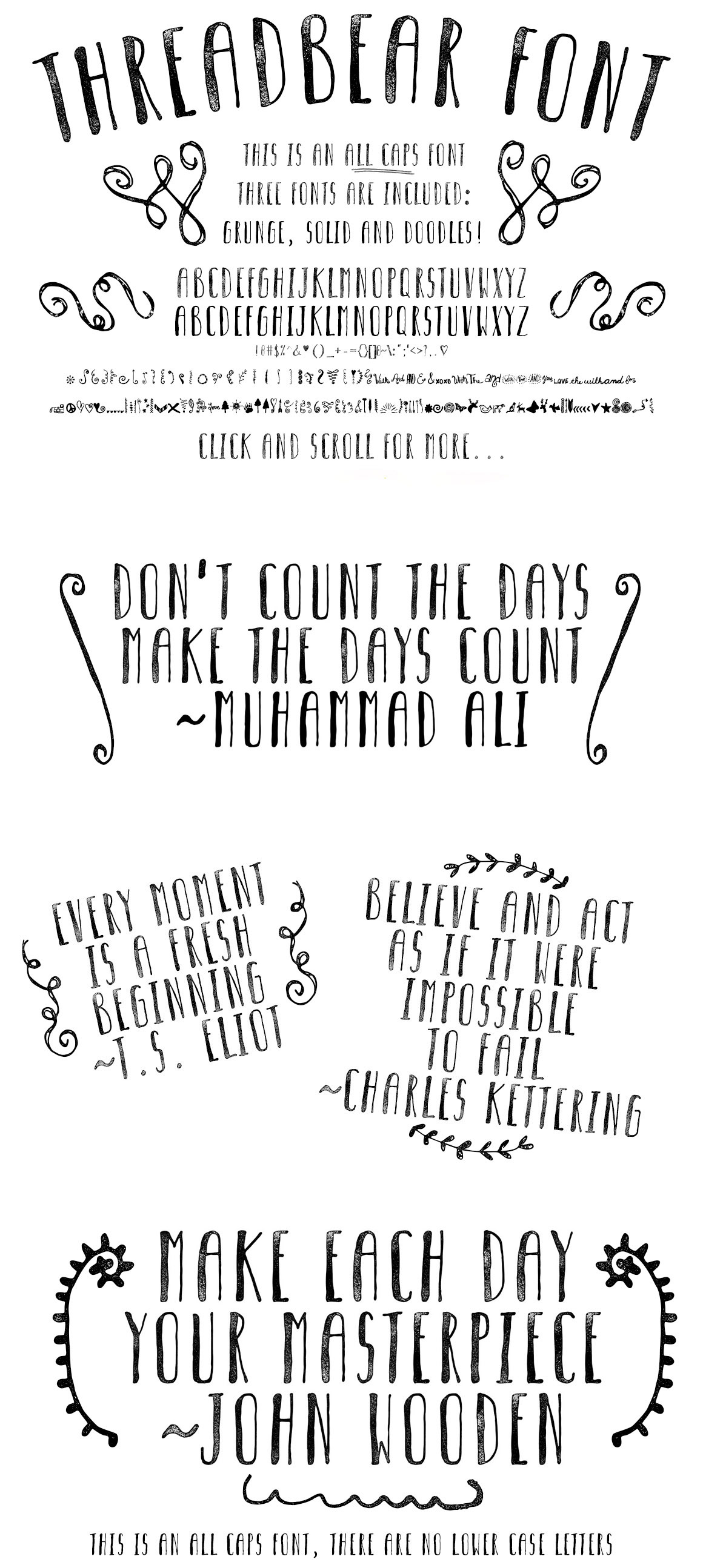
This is a hand drawn font by me named Threadbear. This is my first font I've created for sale so it's got a low introductory price of just $8! This is an ALL CAPS FONT (remember you have to hold down the shift key or hit your caps lock button when using Threadbear.otf or Threadbear-solid.otf)
There are three font files included, Threadbear as a grungy font, Threadbear as a solid font and Threadbear doodles.